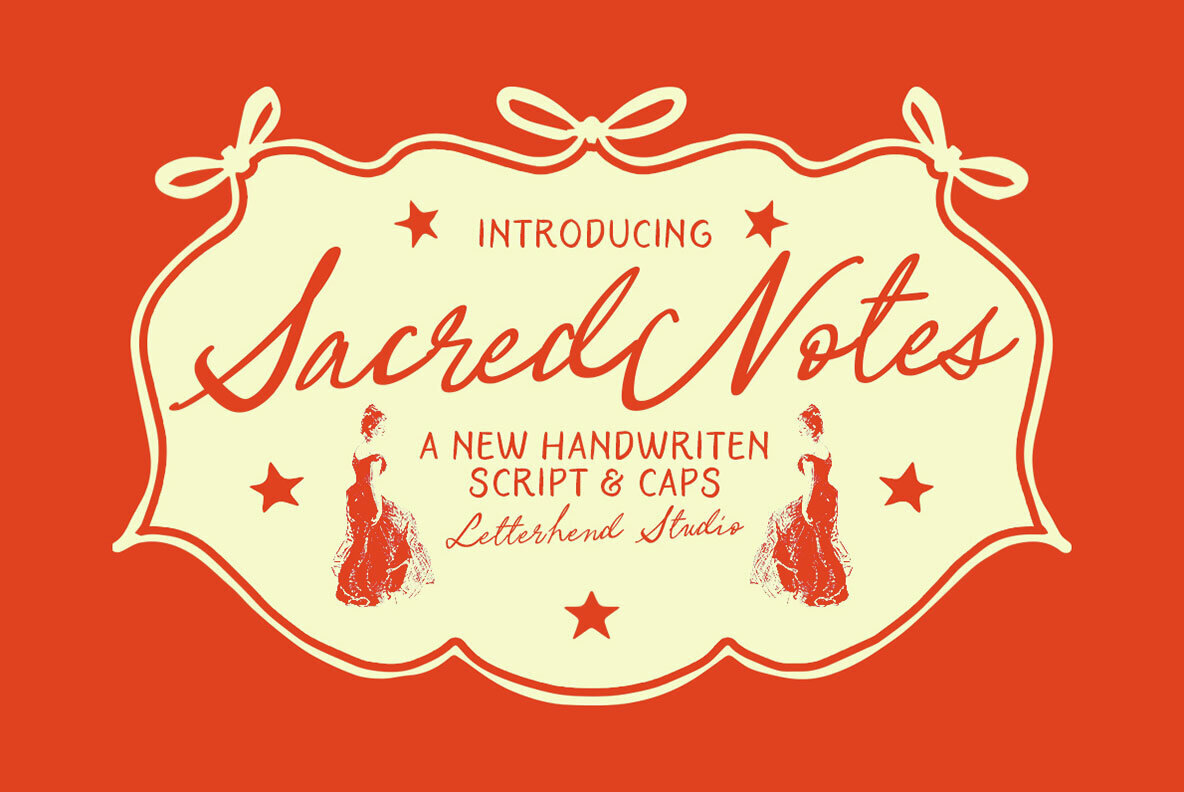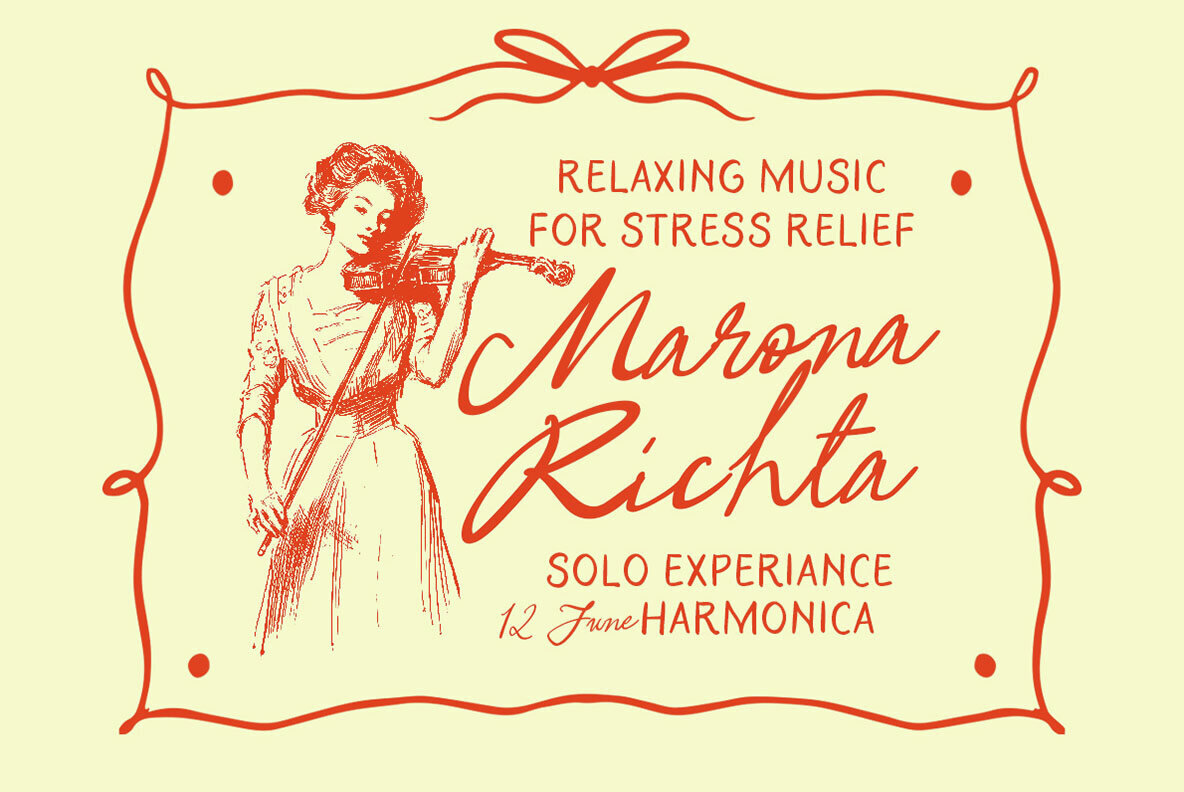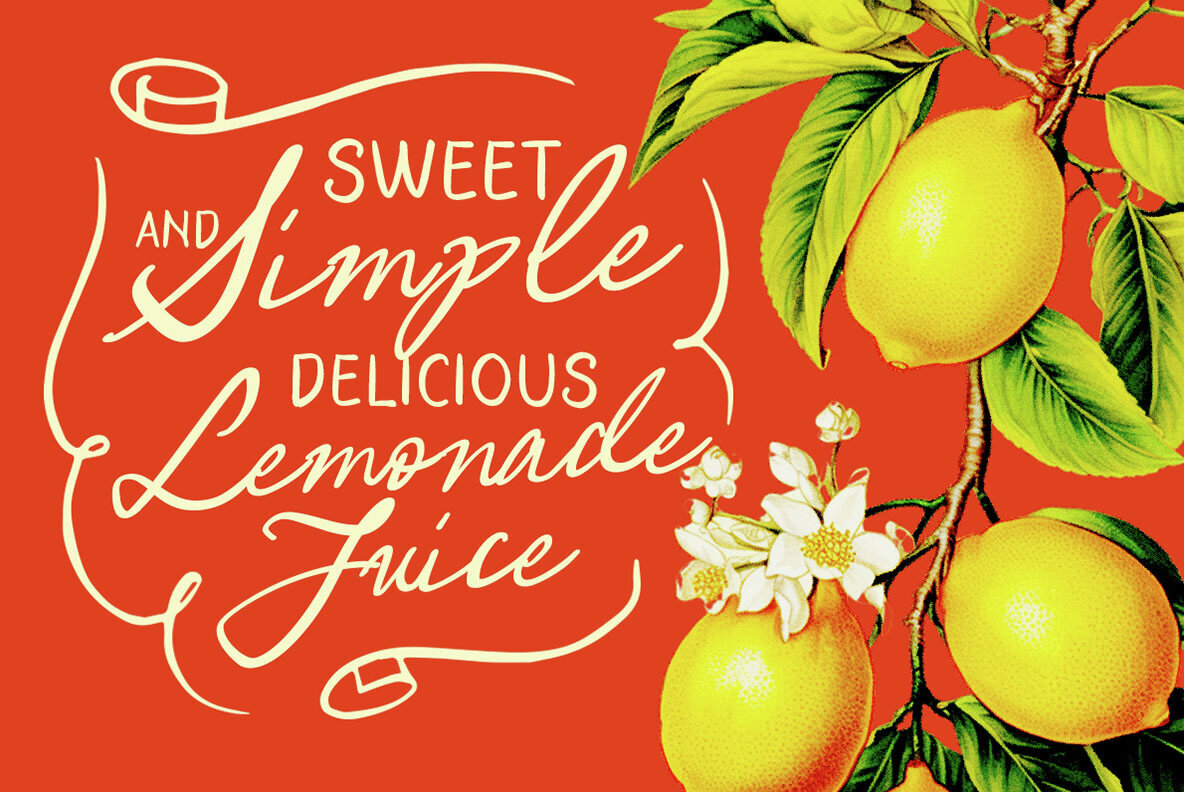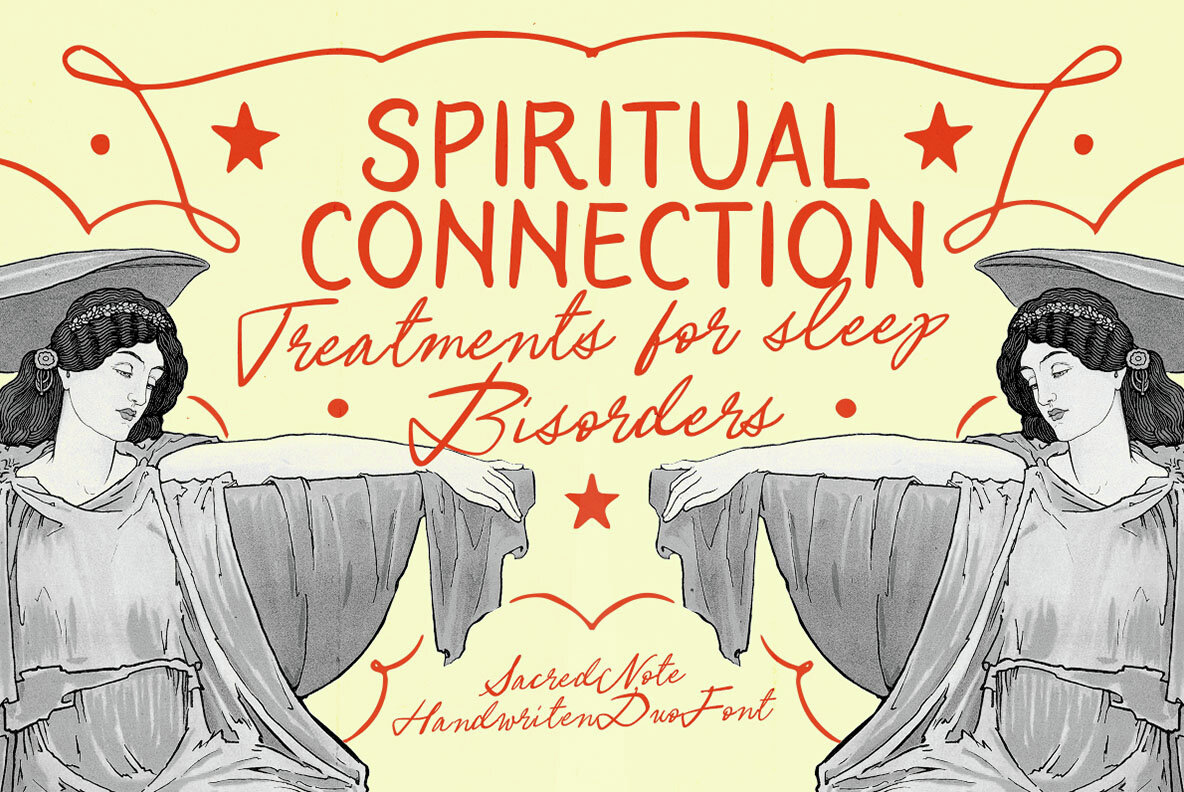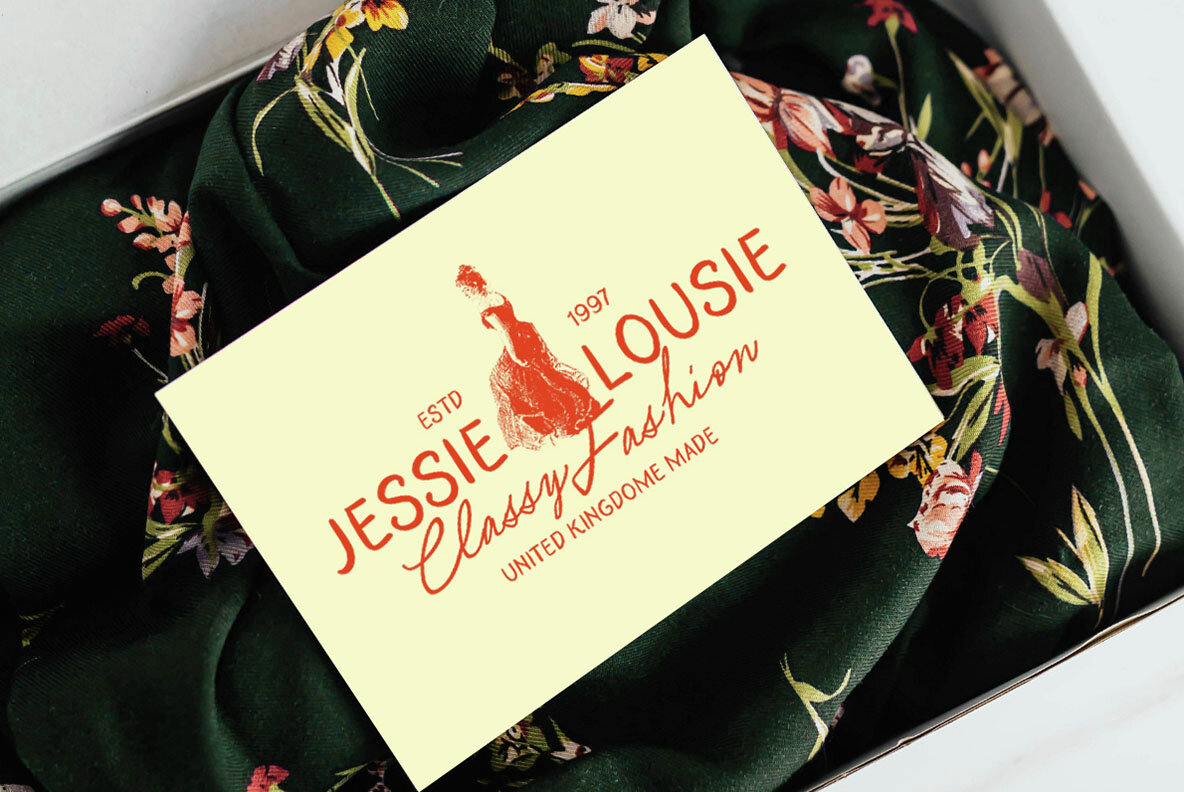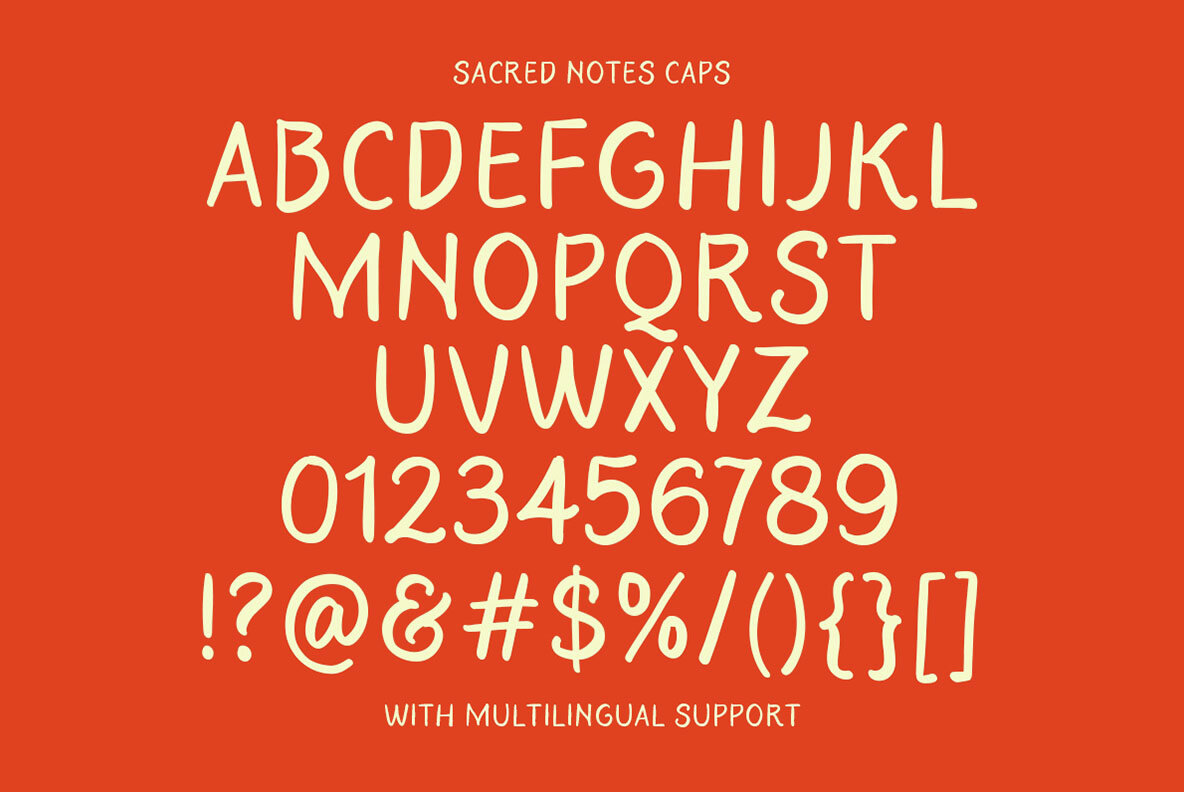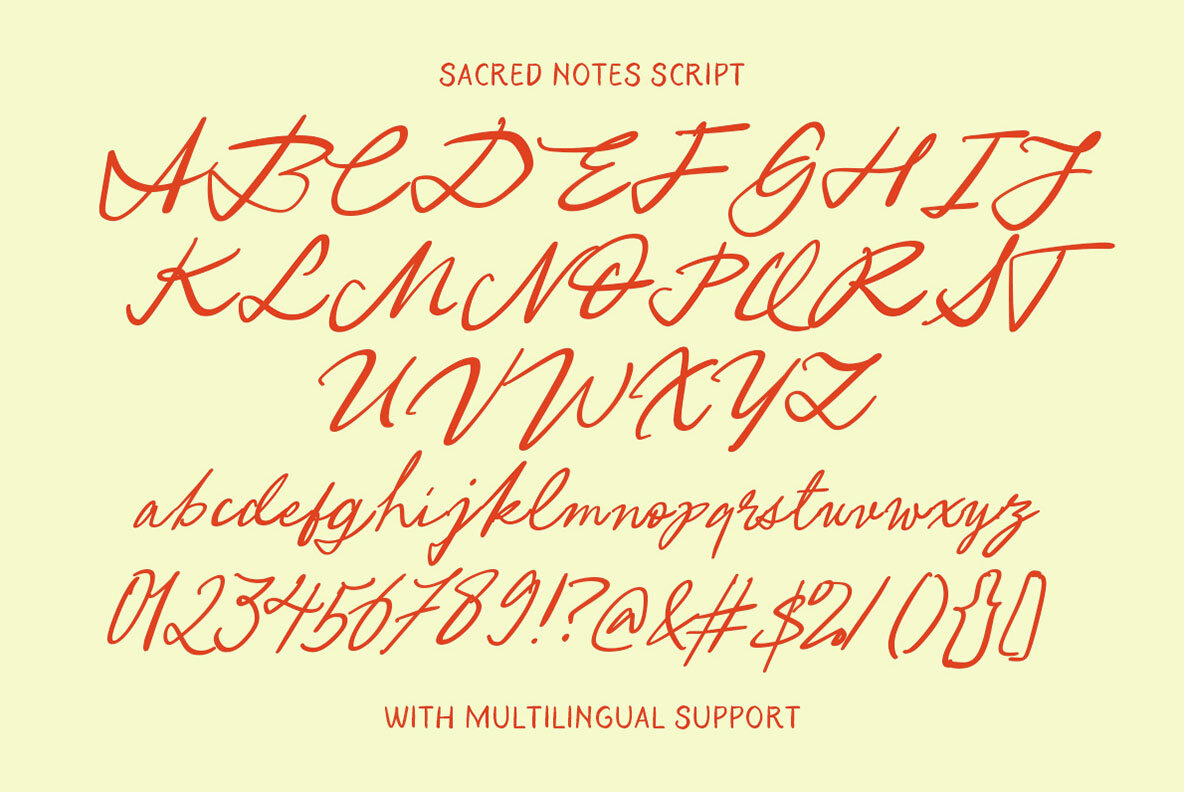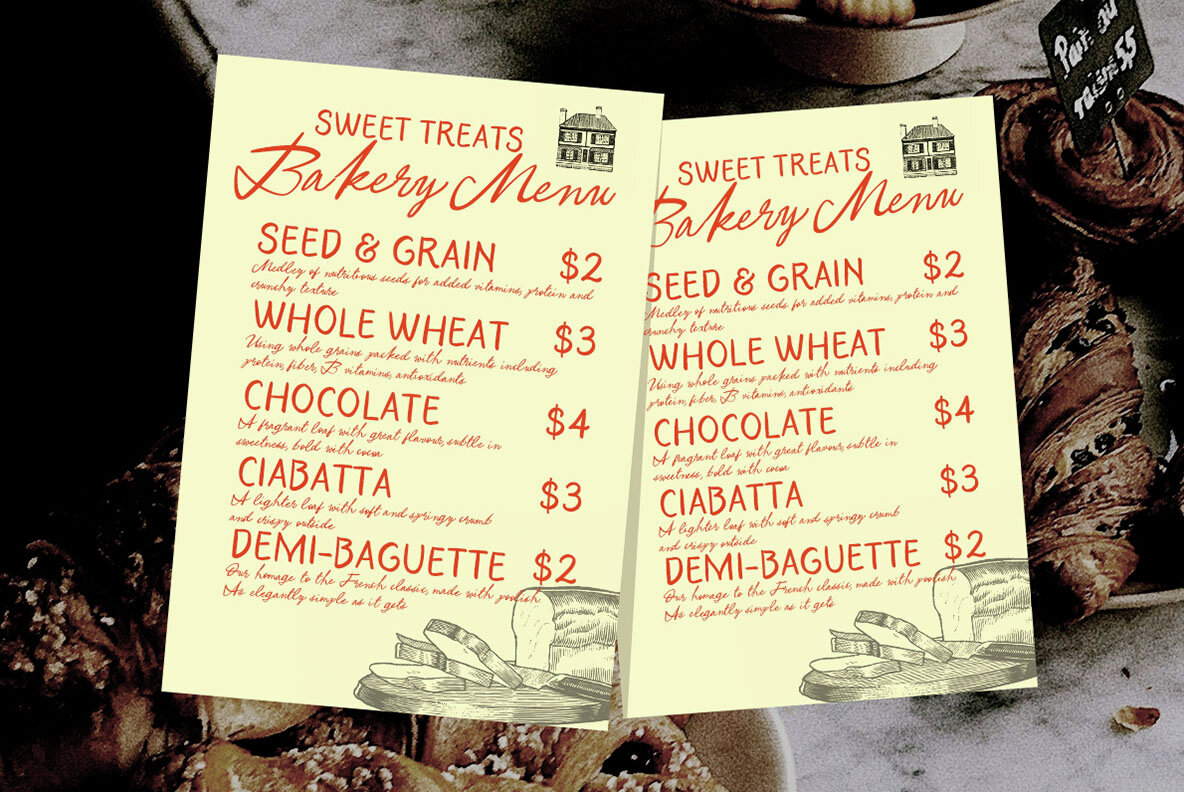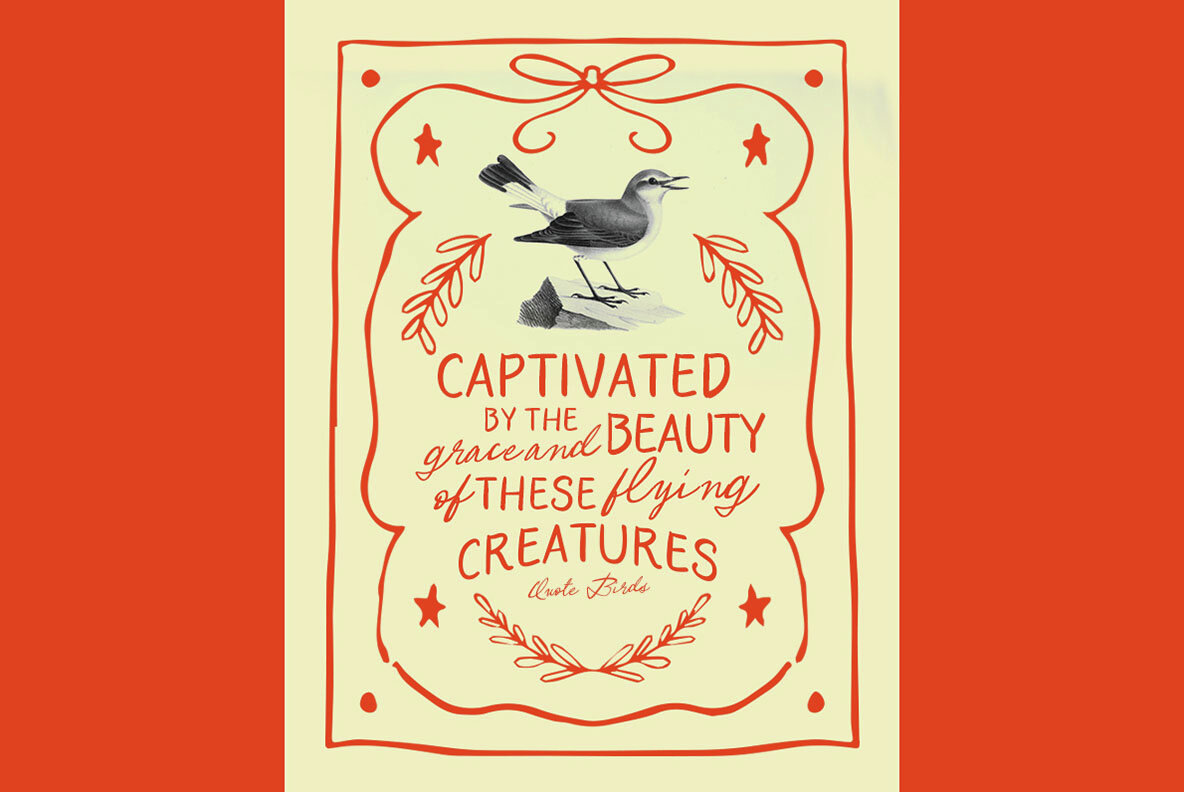
Sacred Notes Font
Sacred Notes is an enchanting font duo that gracefully marries a flowing script style with uppercase sans-serif characters. The script's elegant, sweeping letterforms evoke a sense of nostalgia and romance, while the sans-serif caps provide a clean and playful contrast. This combination creates an aesthetic that is both delicate and expressive, making it an ideal choice for invitations, branding, packaging, greeting cards, and designs with a vintage theme. To fully explore Sacred Notes' versatility, use software that supports OpenType features and access to a Glyphs panel, such as Adobe applications and Corel Draw. This way, you can discover and enjoy the abundance of Glyph variations it offers.Sacred Notes Handwritten Font Duo